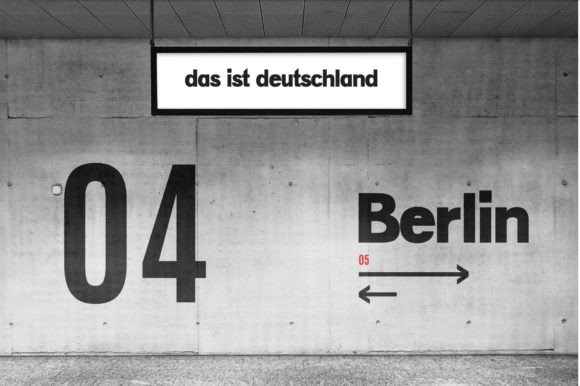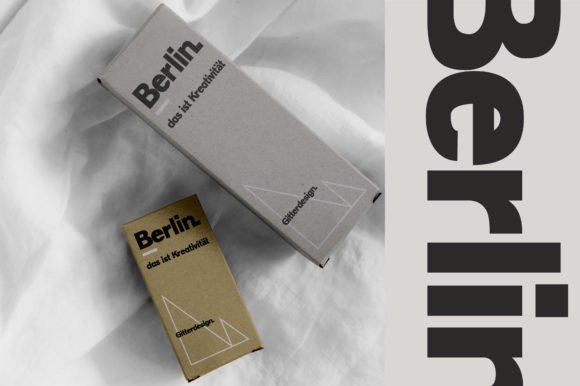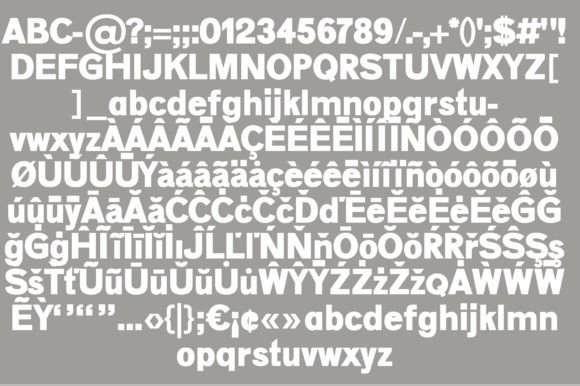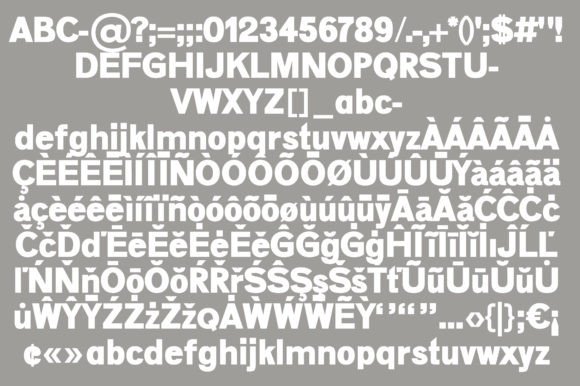
The Perfect Union of Style and Function: Berlin Font
Have you ever stumbled upon a font that just clicks? A font that speaks to you, and makes you want to create something beautiful with it? For designers, that ‘click’ moment is often the result of discovering a font that perfectly captures the essence of their vision. For me, that moment came when I laid eyes on the Berlin Font.
This sleek sans serif grotesque typeface is a masterclass in minimalist design, inspired by the iconic Deutsche and Swiss design rules. With its clean lines and geometric shape, the Berlin Font is the perfect choice for designers looking to add a touch of sophistication to their work. From perfume labels to magazine covers, the Berlin Font adapts effortlessly, making it a valuable asset for any creative project.
- Unique Characteristics: The font features a distinctive, modern sans-serif design with a strong emphasis on legibility and readability.
Designer Review: Berlin Font
✨ I have to say, I’m quite impressed with the Berlin Font. It’s a modern sans-serif typeface that exudes a sense of sophistication and elegance. The font is perfect for designing luxury brands, fashion magazines, or any project that requires a touch of sophistication.
- ✨ The font’s unique features include its geometric shapes and precise lines, which give it a distinctive and recognizable feel.
- ✨ The font is highly legible, even at smaller font sizes, making it perfect for body text or headlines.
- ✨ The font’s versatility allows it to be used in a variety of contexts, from print to digital media.
⚠️ However, I do have a few reservations about the font. One of the main limitations is its lack of character variations, which can make it feel a bit stiff or uniform.
- ⚠️ The font also lacks a bold weight, which can limit its use in certain design contexts.
- ⚠️ The font’s design may not be suitable for projects that require a more playful or informal tone.
Overall, I think the Berlin Font is a solid choice for designers looking for a modern and sophisticated typeface. While it may have some limitations, its unique features and versatility make it a valuable addition to any design toolbox.
Tips for Getting the Most Out of the Berlin Font
The Berlin Font is a versatile and modern sans-serif font, suitable for a variety of applications, including:
- Business and corporate branding
- Digital signage and wayfinding
To get the most out of the Berlin Font, experiment with different font sizes, styles, and combinations to find the perfect look for your design.
Alternatives to Berlin Font for Designers
Avenir is a modern sans-serif font that was designed by Adrian Frutiger in the 1980s. It is known for its clean and geometric lines, making it suitable for use in titles, headings, and body text. Avenir is a popular choice among designers due to its versatility and wide range of weights.
Compared to Berlin Font, Avenir has a more geometric and futuristic feel, while Berlin Font has a more humanistic and elegant feel. Avenir is a better choice for designs that require a modern and sleek look, while Berlin Font is better suited for designs that require a more classic and sophisticated look.
Inter is a sans-serif font that was designed by Office for Creative Research in 2020. It is a highly legible font with a geometric structure, making it suitable for use in body text and titles. Inter is a popular choice among designers due to its clean and modern look, as well as its wide range of weights.